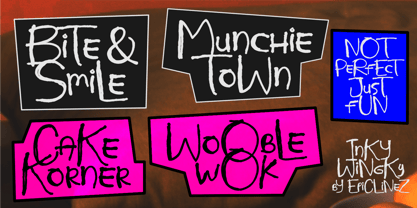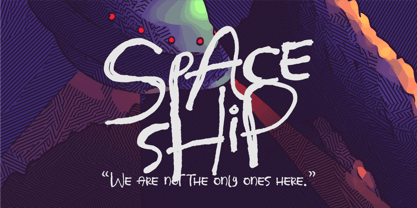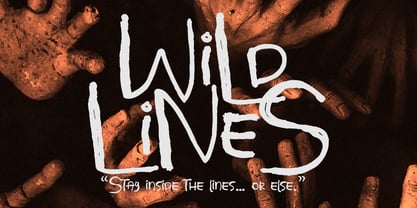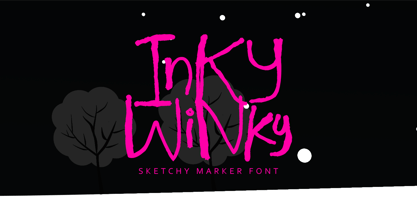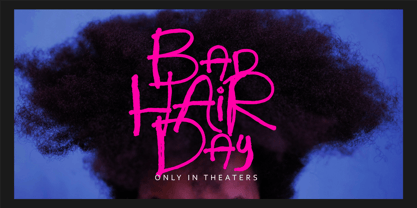
Inky Winky
by Epiclinez
The Inky Winky Font Family was designed by Aldy Sidik and published by Epiclinez. Inky Winky contains 1 styles. More about this family
Inky Winky is a playful, messy brush display font that bursts with personality, chaos, and hand-drawn charm. Created by Epiclinez, this typeface captures the raw energy of sketchy marker strokes, imperfect lines, and spontaneous doodles—making every word feel alive and full of expression. With its rough edges, bouncy rhythm, and slightly unpredictable letterforms, Inky Winky brings a fun, quirky vibe that stands out in any design. It’s designed to feel unpolished on purpose—embracing imperfection as a style, not a flaw. Perfect for projects that need a bold and playful voice, Inky Winky shines in kids-themed designs, cartoon titles, YouTube thumbnails, posters, snack packaging, comic graphics, and creative branding. Whether you're crafting something silly, chaotic, or full of attitude, this font delivers a strong visual punch with a wink of humor. Let your creativity run wild and draw outside the lines with Inky Winky.
Designers: Aldy Sidik
Foundry: Epiclinez